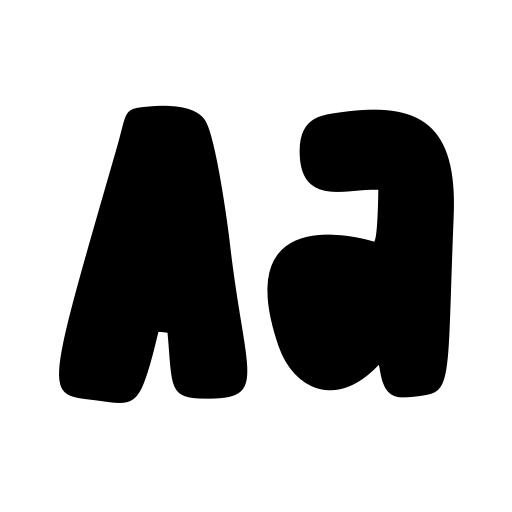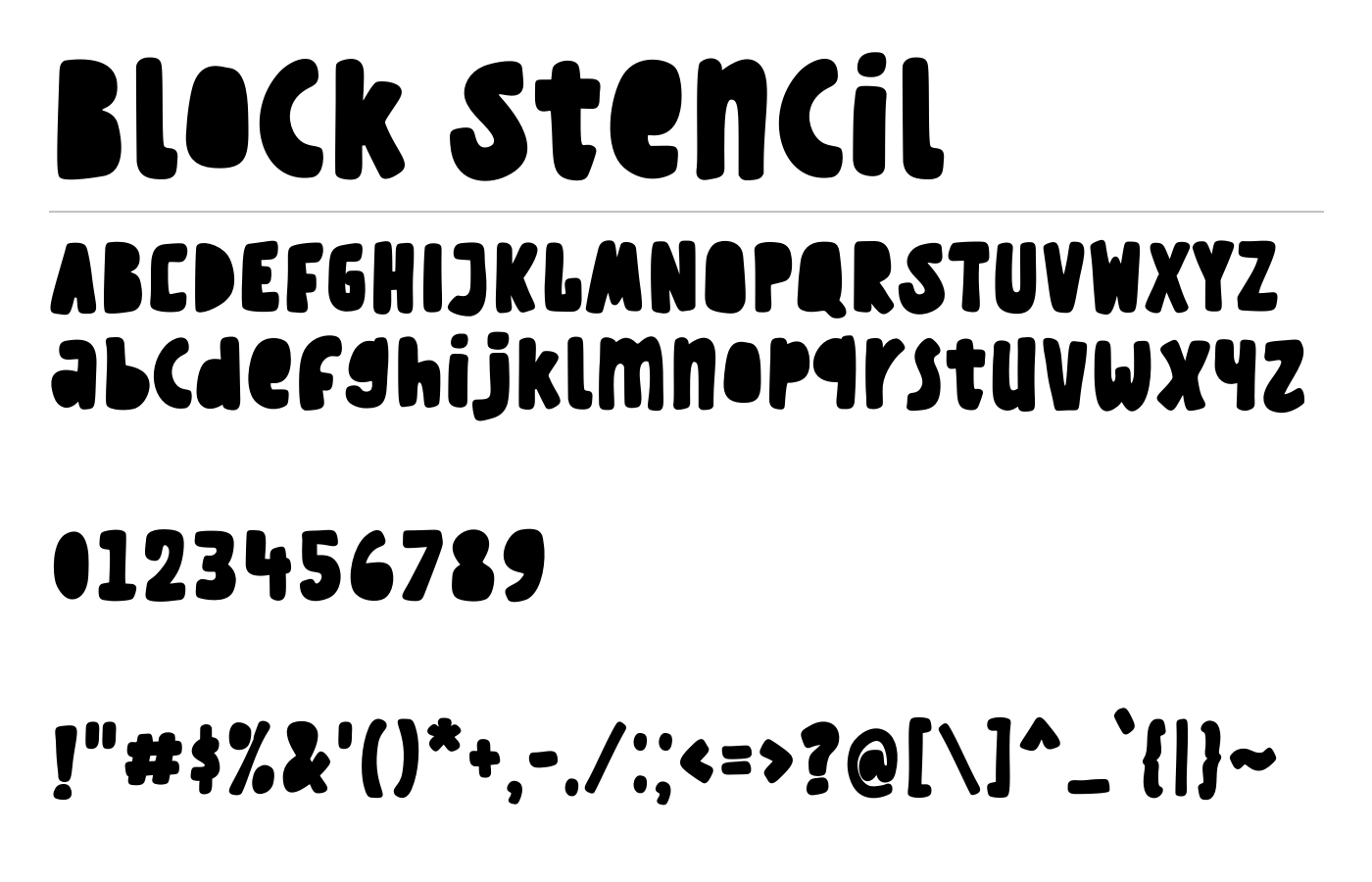
Block Stencil Font is a bold, playful sans serif with a chunky and rounded appearance, featuring smooth, informal letterforms that evoke a hand-drawn or stencil style. Its thick strokes and wide, friendly shapes make it perfect for casual branding, kids' designs, posters, and eye-catching headlines where a fun, approachable vibe is desired. This font stands out with its unique, almost bubbly character, adding personality and warmth to any creative project.
Block Stencil Font
About Block Stencil Font